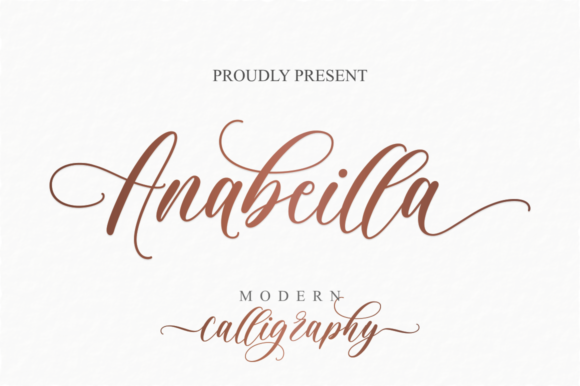
Behold, the enchanting Anabeilla Font, a script font that exudes charm and playfulness, beckoning you to explore its captivating world of calligraphy. Feel the rhythm of each letter as it dances gracefully along the baseline, creating a symphony of visual delight. Crafted with meticulous care by the skilled hands of kammaqsum, Anabeilla is a testament to the artistry and passion that goes into every stroke.
As a script font, Anabeilla possesses an undeniable allure, reminiscent of handwritten notes penned with love and care. Its characters, each imbued with a unique personality, come together to form words that resonate with emotion and meaning. Whether you're designing wedding invitations, crafting personalized posters, or creating social media graphics, Anabeilla seamlessly blends elegance and charm into every project.
Unleash your creativity and let Anabeilla guide you on a journey of self-expression. Embrace the whimsical nature of this font, allowing your imagination to soar as you explore its endless possibilities. With Anabeilla as your creative companion, you'll discover a world where words come alive, capturing hearts and igniting imaginations.